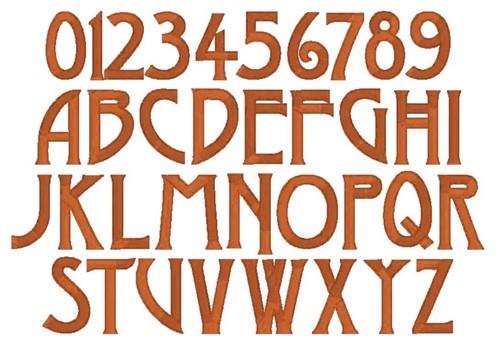
Oxford Nights Embrilliance Embroidery Font - Decorative Geometric Lettering - BX font by Easy Embroidery and other embroidery fonts available at EmbroideryDesigns.com.
Easy Embroidery is happy to present Oxford Nights Embrilliance Embroidery Font - Decorative Geometric Lettering - BX font machine embroidery font which has Geometric decorative embroidery font suitable for unique designs on home decor items like throw pillows. Available in BX font and Embrilliance formats. included. If you would like to view more embroidery fonts and alphabets please search our embroidery fonts page.
Oxford Nights Embrilliance Embroidery Font - Decorative Geometric Lettering - BX font